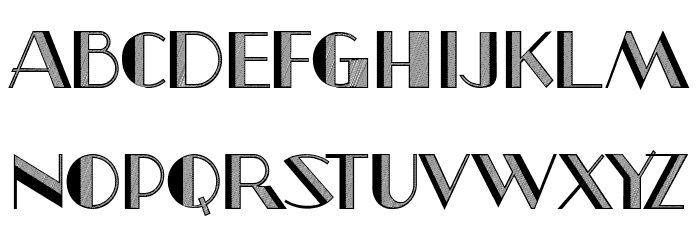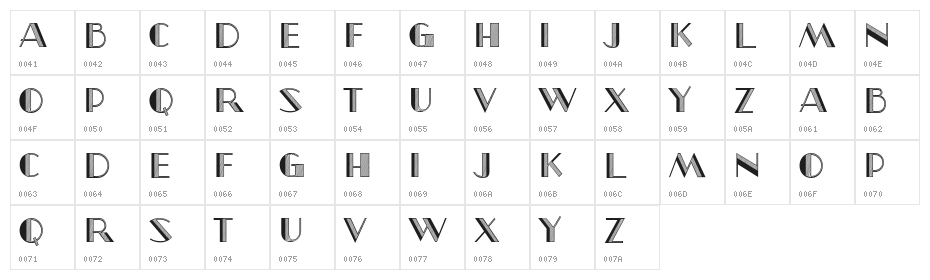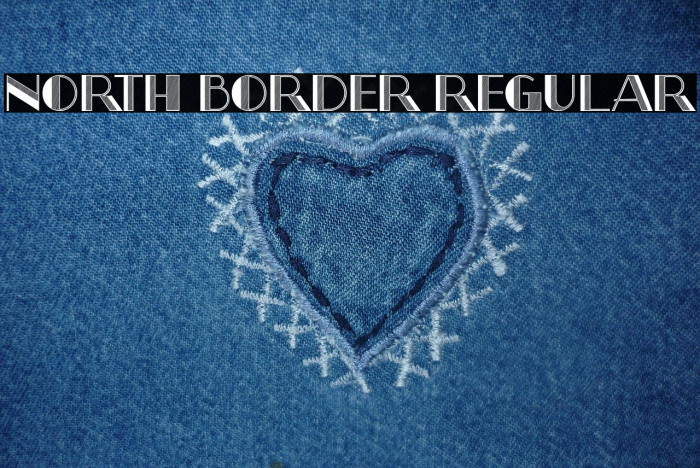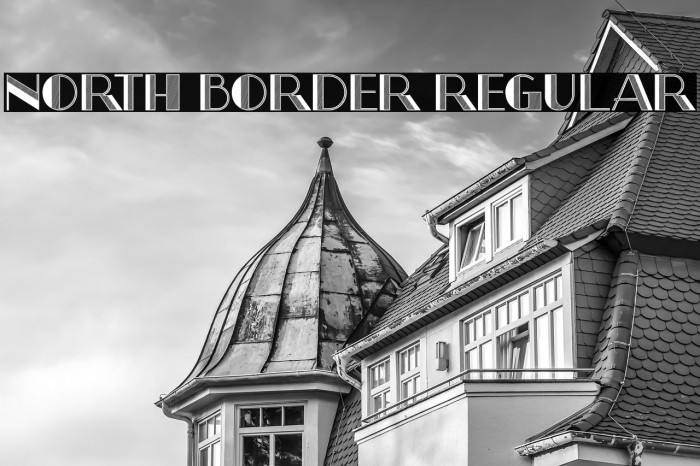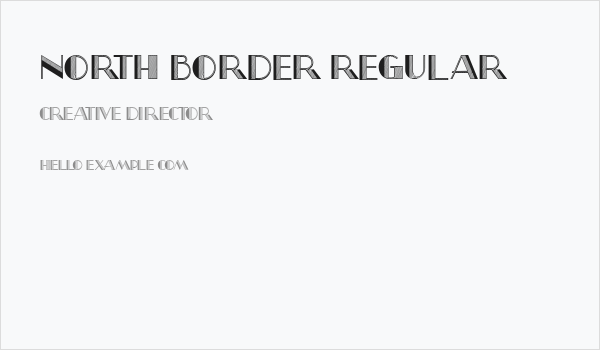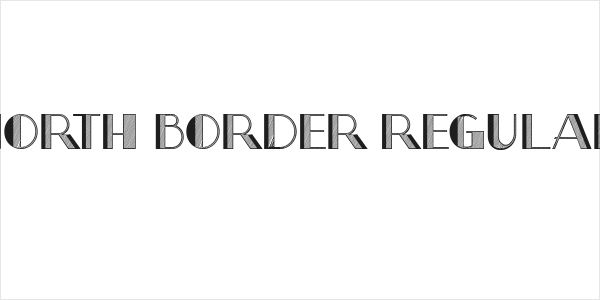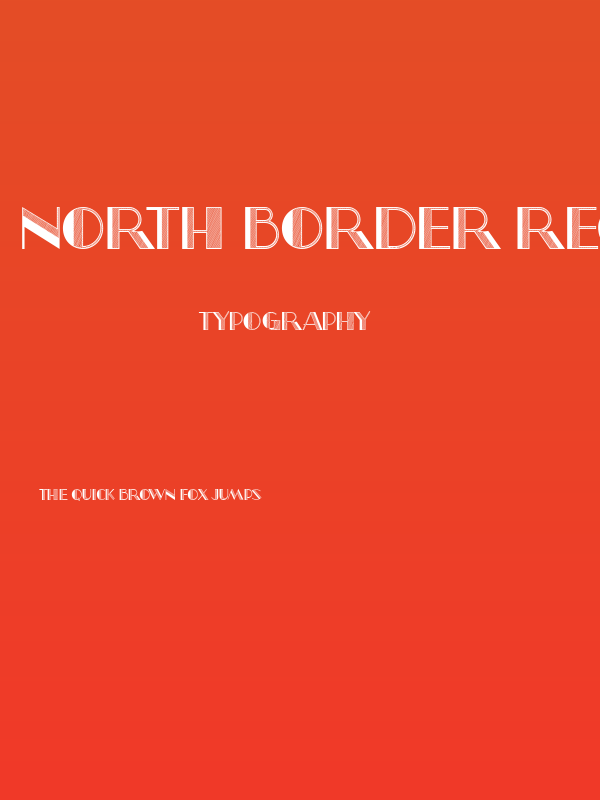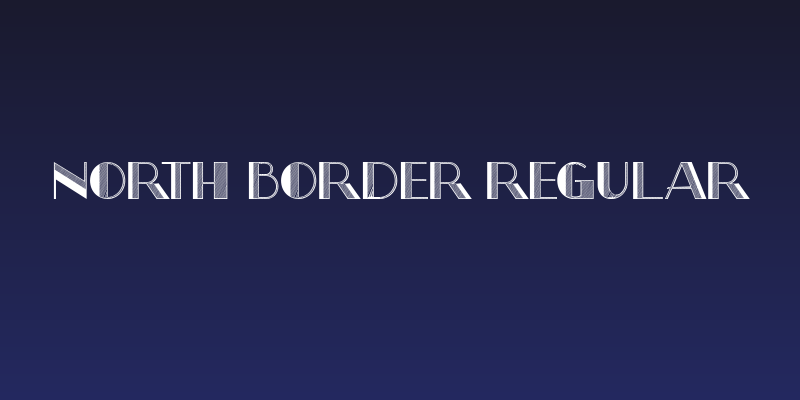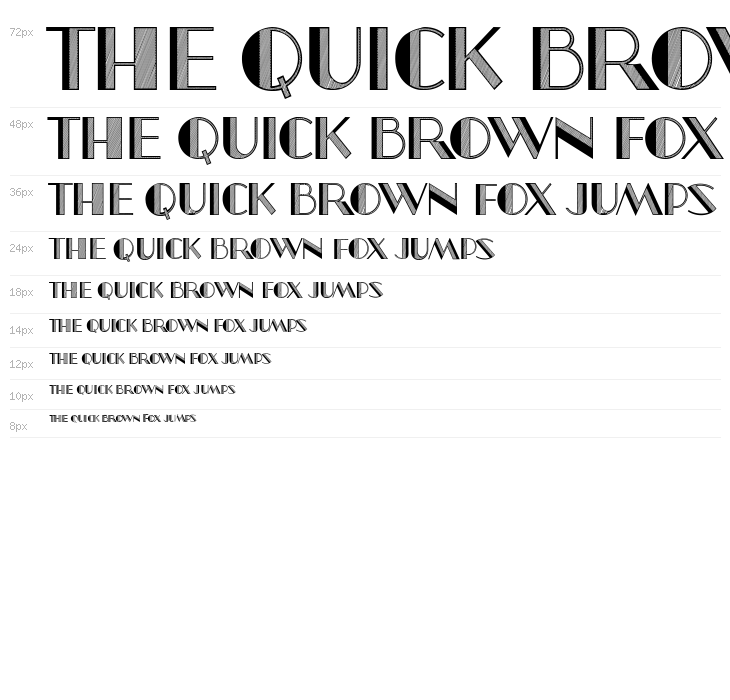
North Border Regular Font
North Border Regular Description
This font features a unique and artistic design with a blend of bold and thin strokes, creating a striking visual contrast. The characters are uppercase only, with a geometric and modern style that incorporates both solid and outlined elements. The letters have a distinct three-dimensional effect, achieved through the use of shading and varying line thicknesses. This gives the font a dynamic and eye-catching appearance, making it suitable for creative and decorative purposes. The overall design is clean yet intricate, offering a balance between readability and artistic flair.
| Proposed Projects | Ideal for branding, posters, headlines, and any project requiring a bold, artistic touch. |